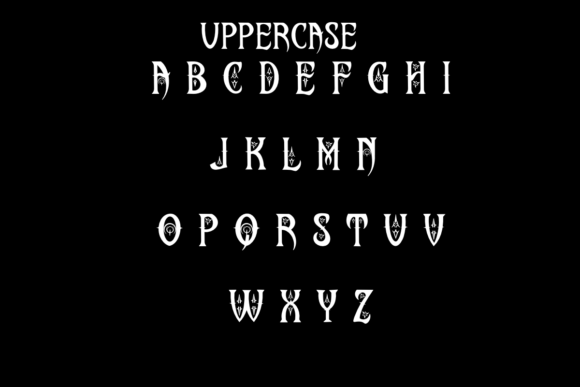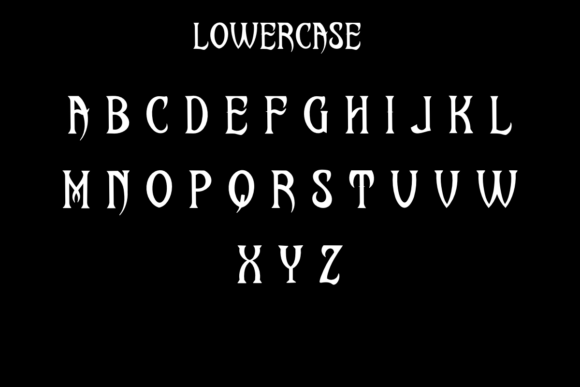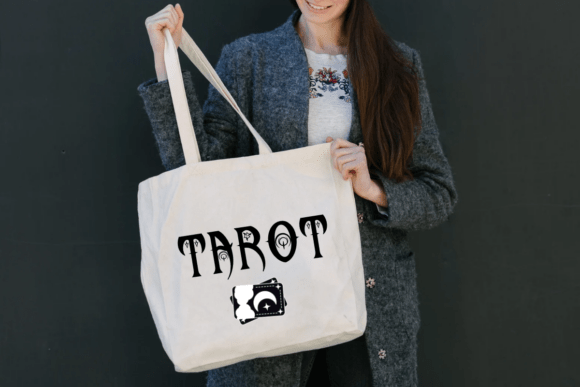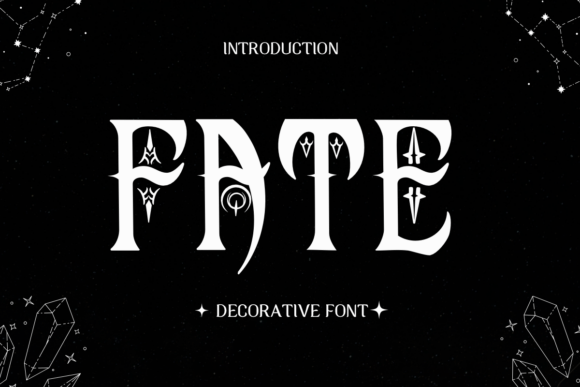
Fate Font: Unleash the Mystique of Arcane Symbols in Your Designs
Are you a designer, craftsperson, or artist looking to infuse your work with a touch of mysticism and drama? Look no further than the Fate Font, a decorative display font that embodies the essence of astrology, divination, and ancient lore. This stunning font is designed to transport your text to a realm of enchantment, perfect for projects that require a sense of ritual, reverence, and spellbound elegance.
The Inspiration Behind Fate Font
Fate Font draws inspiration from the mystical and symbolic languages of astrology, divination, and ancient lore. Each uppercase letter is carefully crafted with sharp, stylized serifs and unique embedded magical glyphs, evoking the mysterious and powerful aura of the arcane. The font’s bold, upright letterforms command attention, while the decorative elements add a touch of sophistication and refinement.
Design Features of Fate Font
Fate Font boasts a range of design features that make it perfect for creative projects. Some of its key characteristics include:
- Sharp, stylized serifs: Adding a touch of drama and elegance to each letterform.
- Unique embedded magical glyphs: Carved into each uppercase letter, these glyphs infuse the font with an air of mysticism and wonder.
- Bold, upright letterforms: Evoking a sense of ritual and reverence, perfect for titles, headings, and emphasis.
- Decorative elements: Adding a touch of spellbound elegance to each character, perfect for branding, packaging, and design.
Use Cases for Fate Font
Fate Font is a versatile font that can be used in a variety of creative projects, including:
- Branding magical products: Add a touch of mysticism to your product labels, packaging, and marketing materials.
- Tarot cards and divination tools: Create stunning, professional-grade tarot decks and divination tools with Fate Font.
- Potion labels and apothecary design: Add a touch of ancient lore to your potion labels, apothecary jars, and packaging.
- Fantasy book covers and publishing: Create eye-catching book covers and typography for your fantasy novels and publications.
- Celestial-themed decor and accessories: Use Fate Font to add a touch of mysticism to your home decor, stationery, and accessories.
Why Choose Fate Font?
Fate Font offers a range of benefits for designers, craftspersons, and artists, including:
- Unique and distinctive design: Stand out from the crowd with a font that is both elegant and mystical.
- High-quality typography: Professionally crafted to ensure clarity, legibility, and impact.
- Versatility: Suitable for a wide range of creative projects, from branding and packaging to publishing and design.
Fate Font is a powerful and enchanting decorative display font that is sure to captivate your audience. With its unique blend of mystical and dramatic elements, this font is perfect for designers, craftspersons, and artists looking to add a touch of arcane wonder to their work. Whether you’re creating branding materials, tarot cards, potion labels, or fantasy book covers, Fate Font is the perfect choice for anyone seeking to unleash the mystique of ancient lore in their designs.